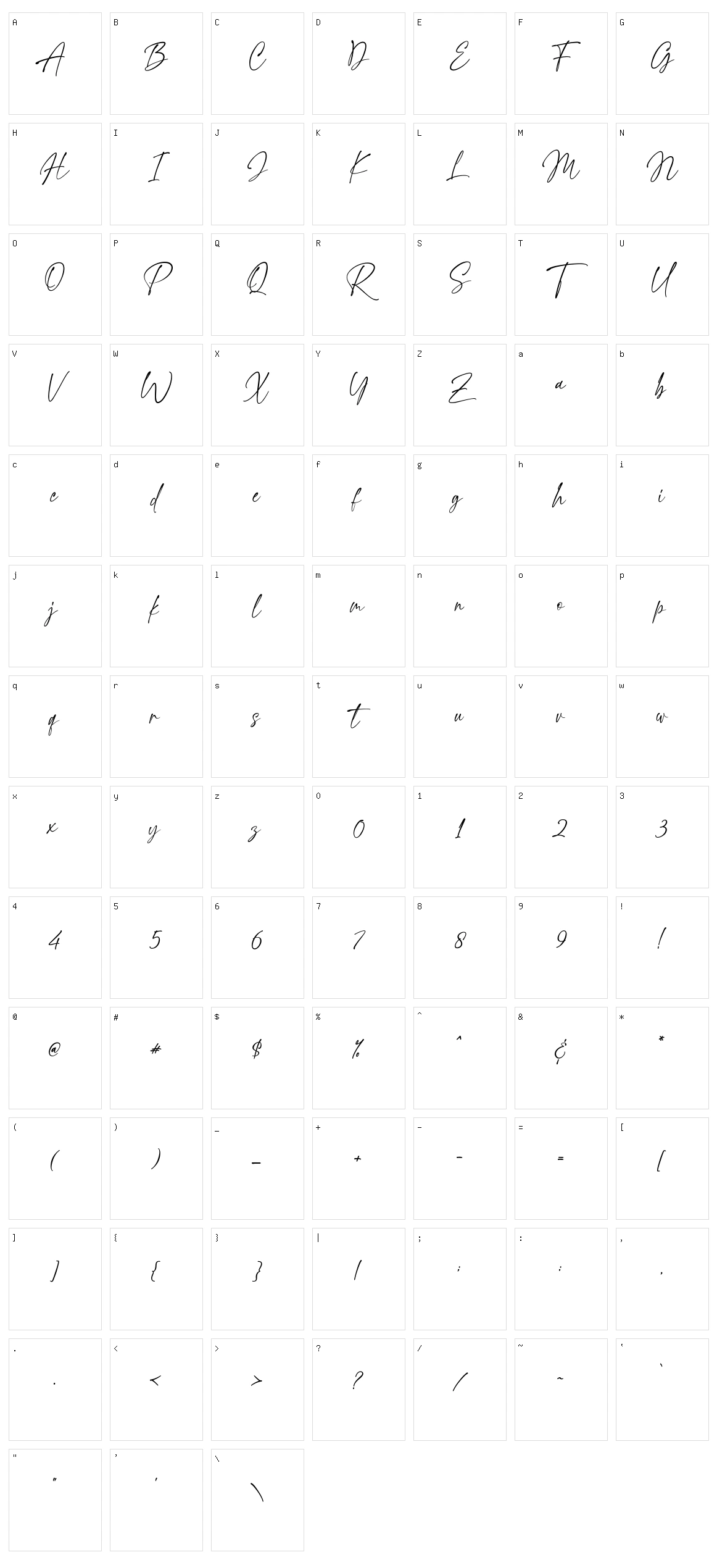
The free font Spectacular Signature is carefully designed by Beautypes, showcasing a thoughtful balance of creativity and usability and falls under the Script font style. When you download the ZIP file, it contains only 53.74 KB of font files, making it lightweight and quick to download. Please review the license details below to understand permitted usage and distribution rights. If license information is not available, we recommend using this font for personal projects only or contacting the author directly for commercial usage permissions.